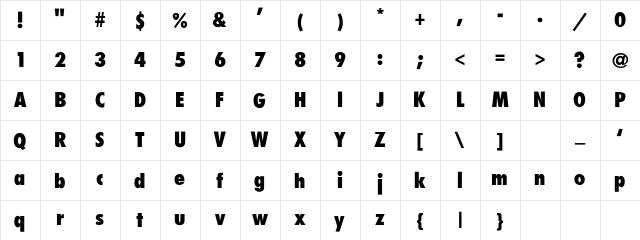
Futura-CondensedExtraBold Thin
Style: Thin
Complete Futura-CondensedExtraBold Thin glyph index. Displaying only characters natively supported by Futura-CondensedExtraBold Thin font.
Design Context for Futura-CondensedExtraBold
Futura-CondensedExtraBold has a distinctly futuristic character, with geometric precision and clean angles that feel at home in technology, gaming, and sci-fi contexts. Its bold stroke weight gives it real presence on the page. Its narrow stance lets it pack a punch even in space-constrained designs.